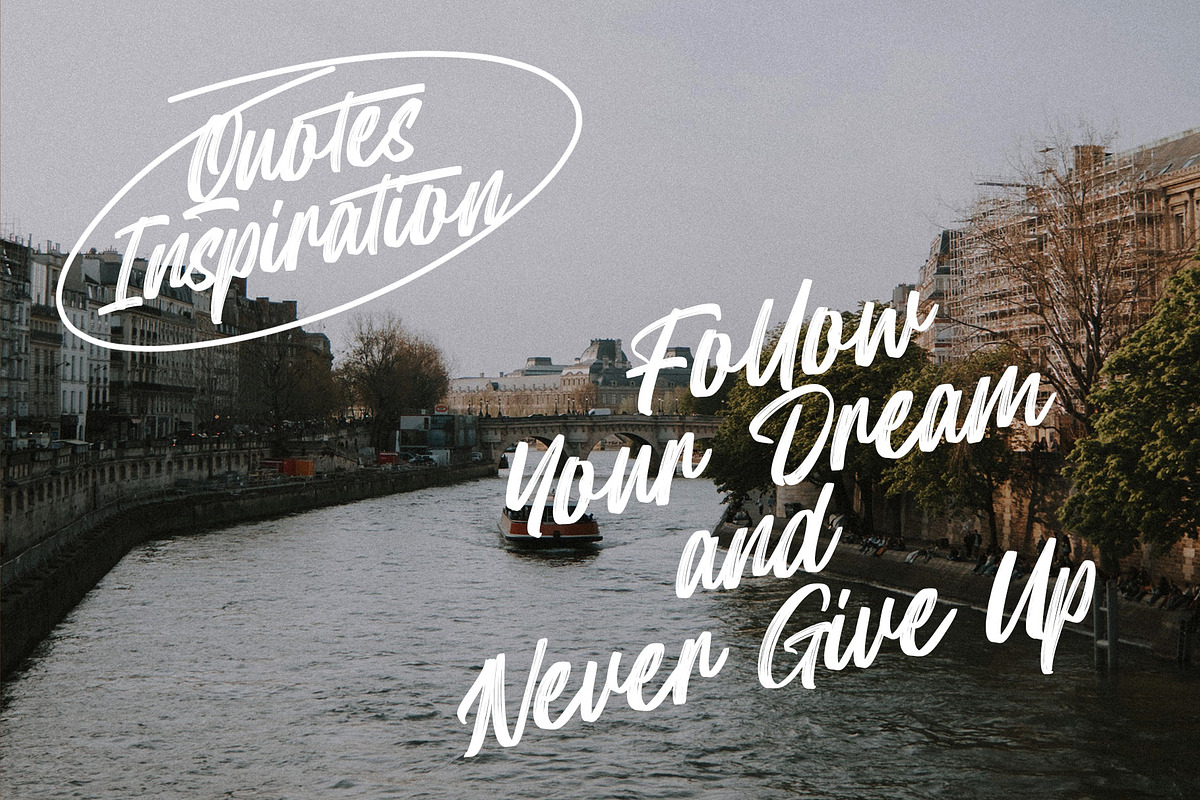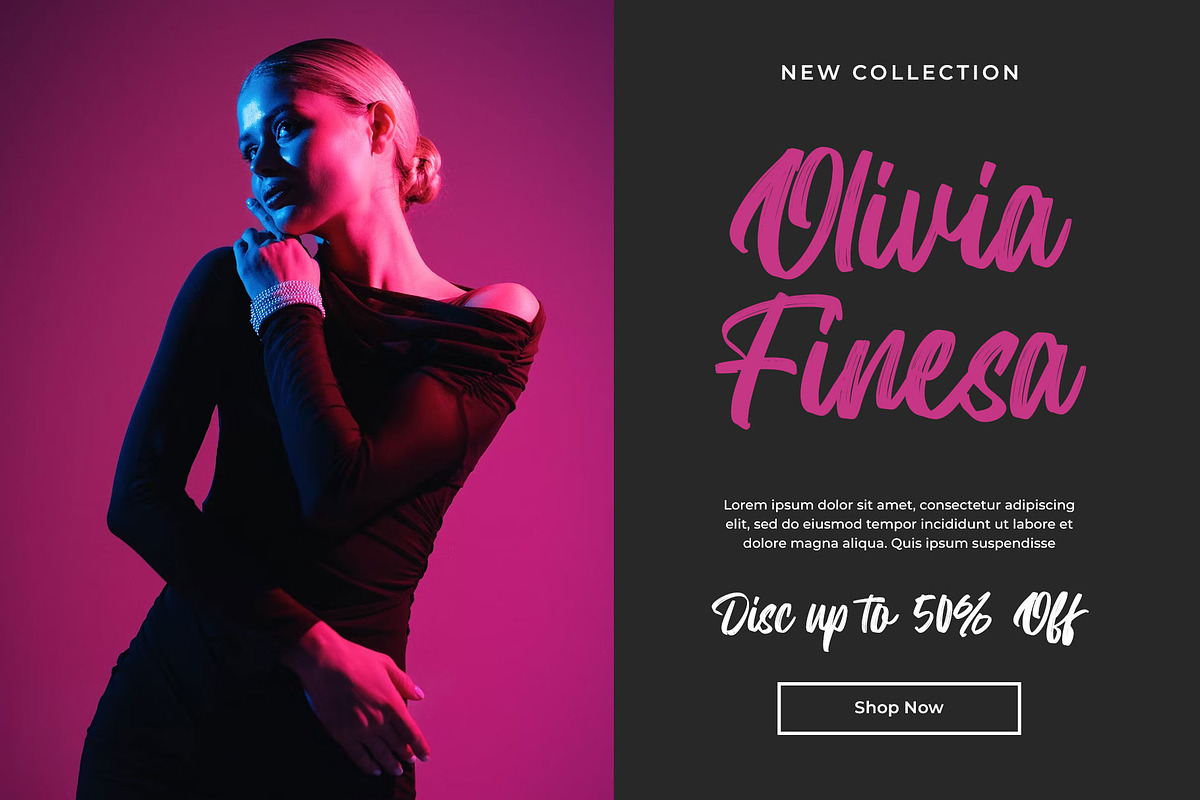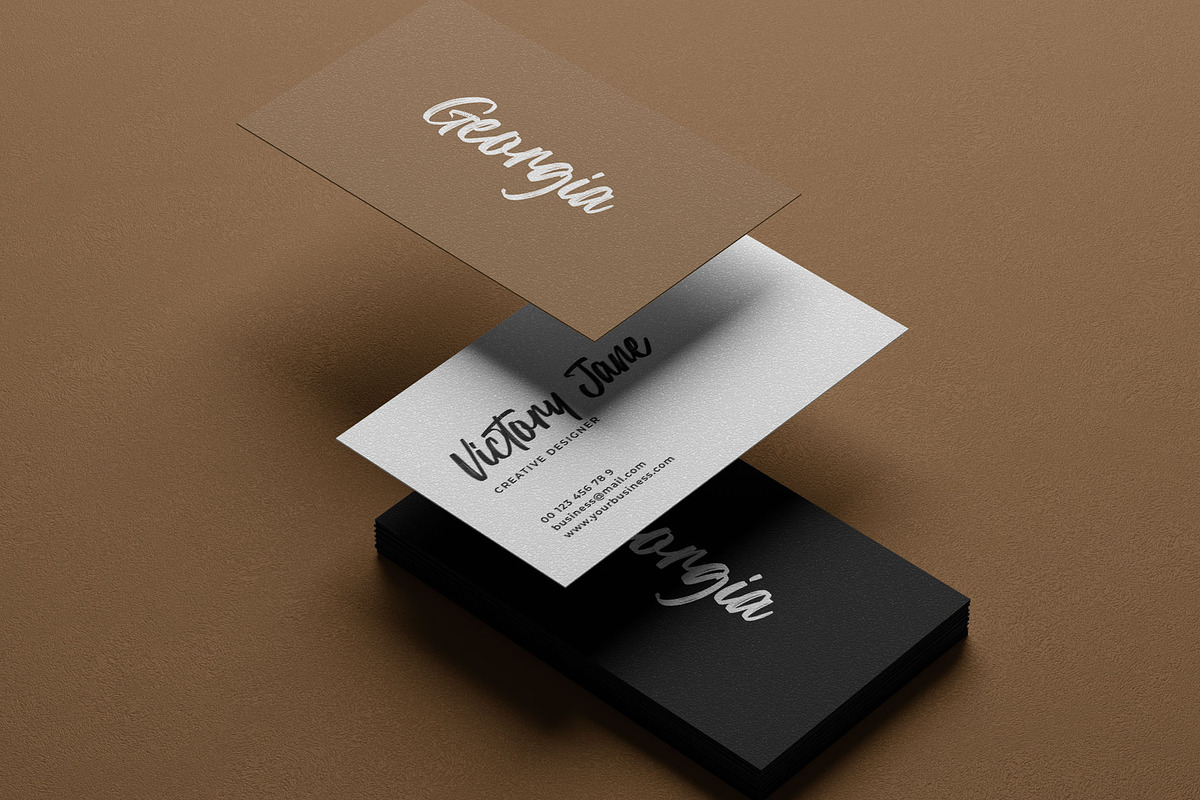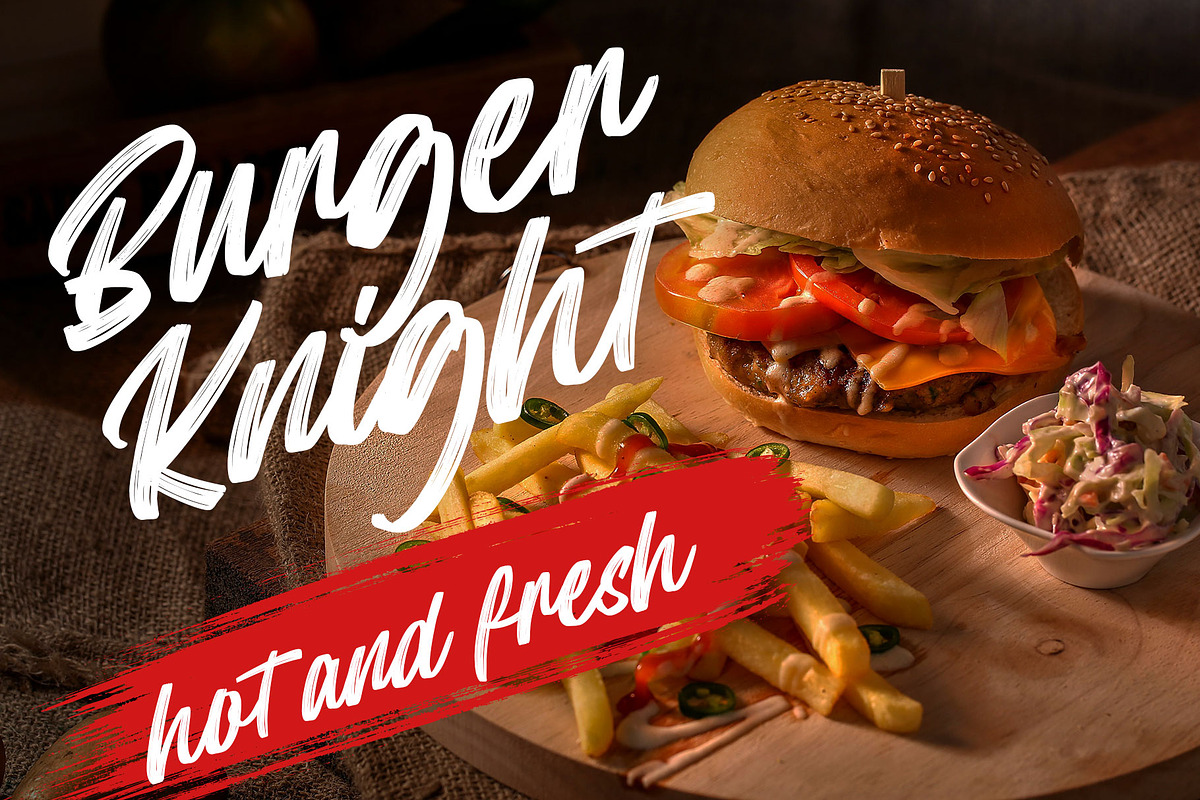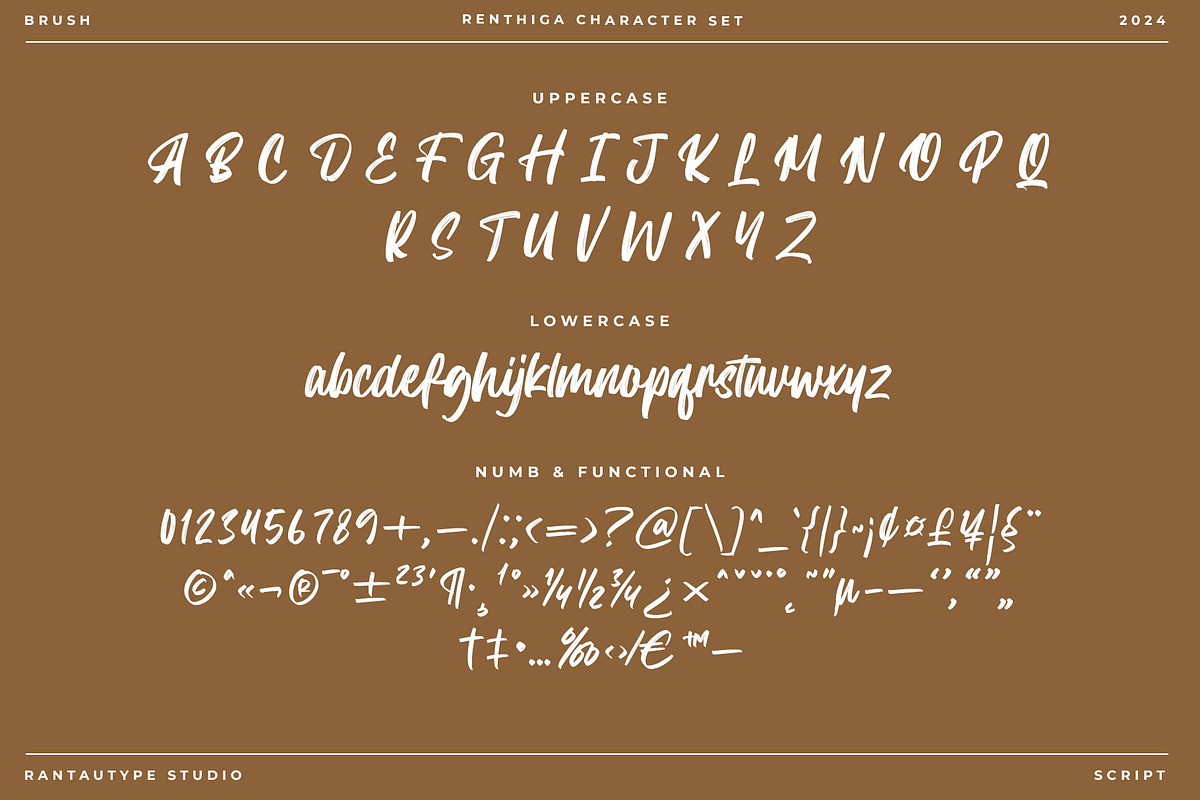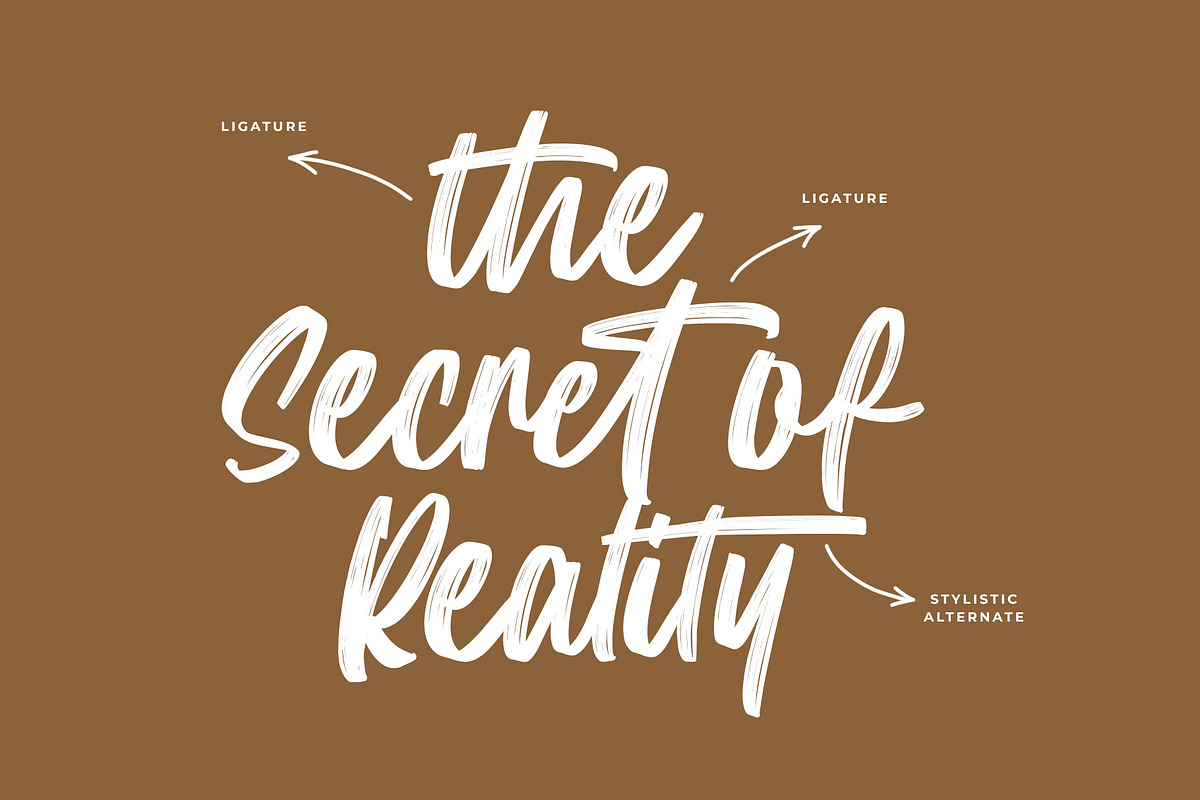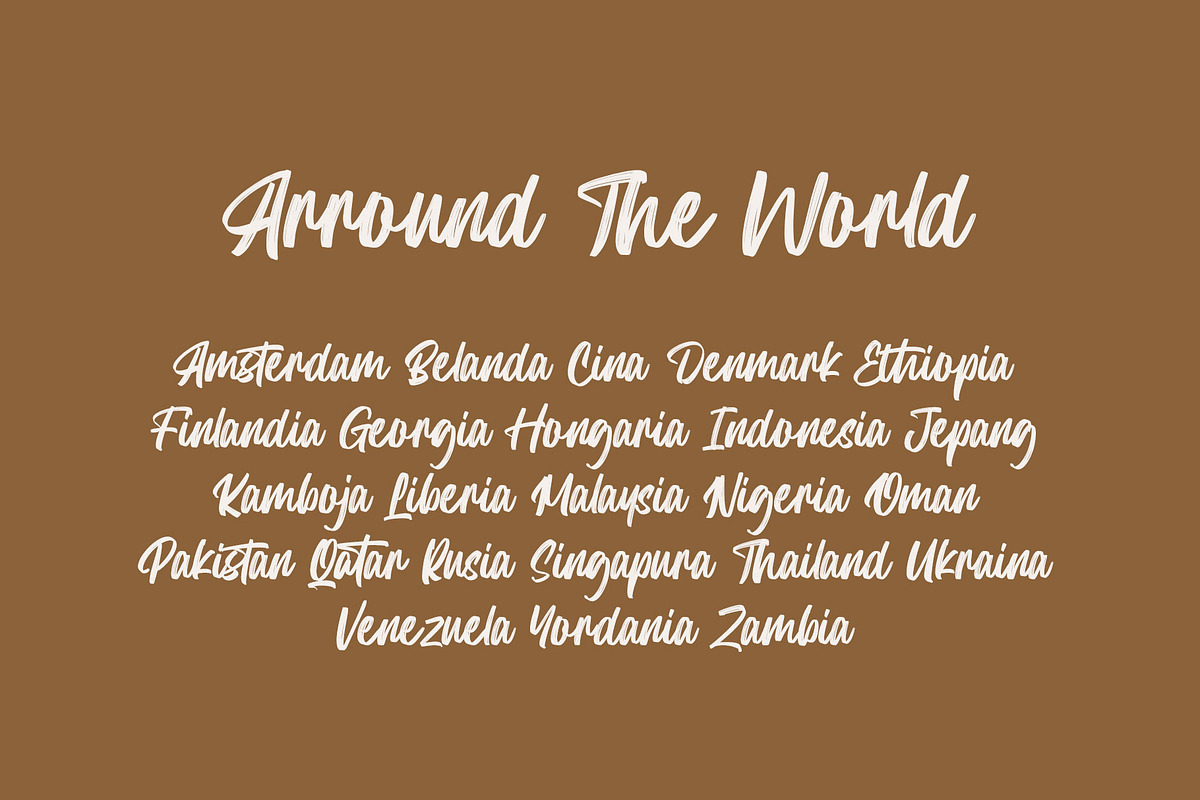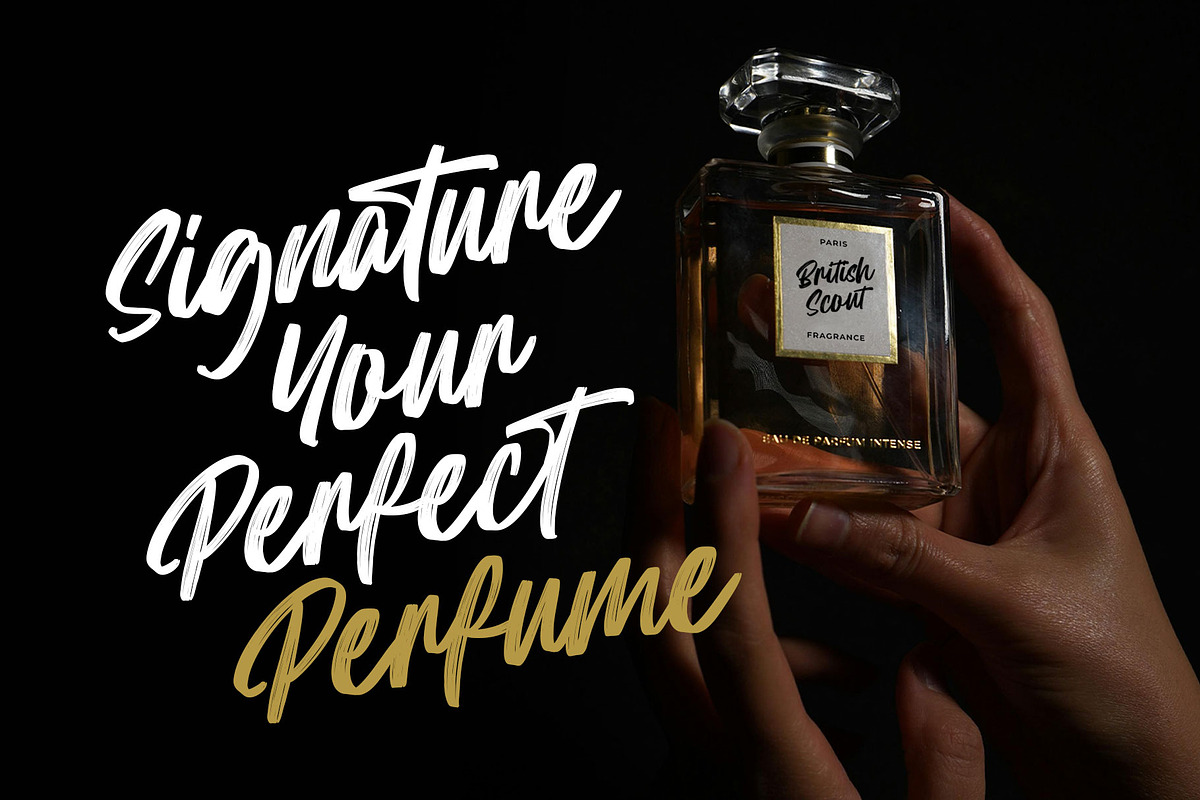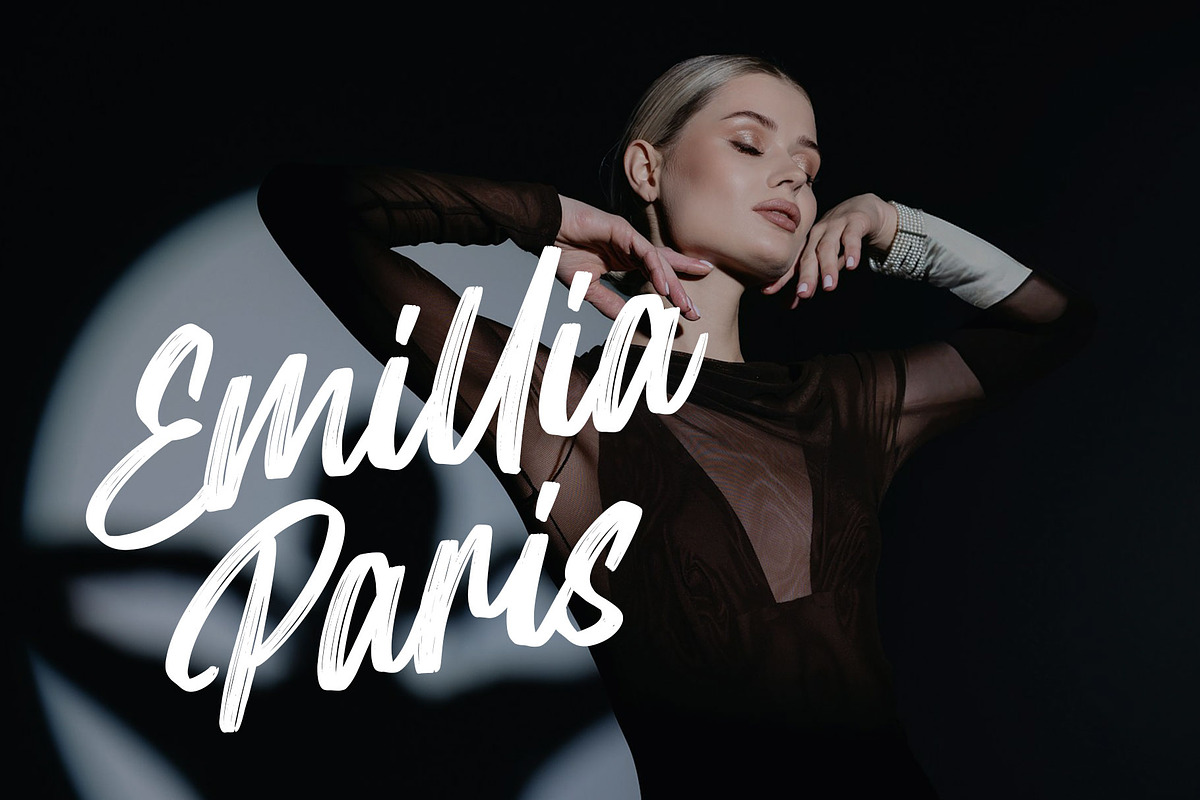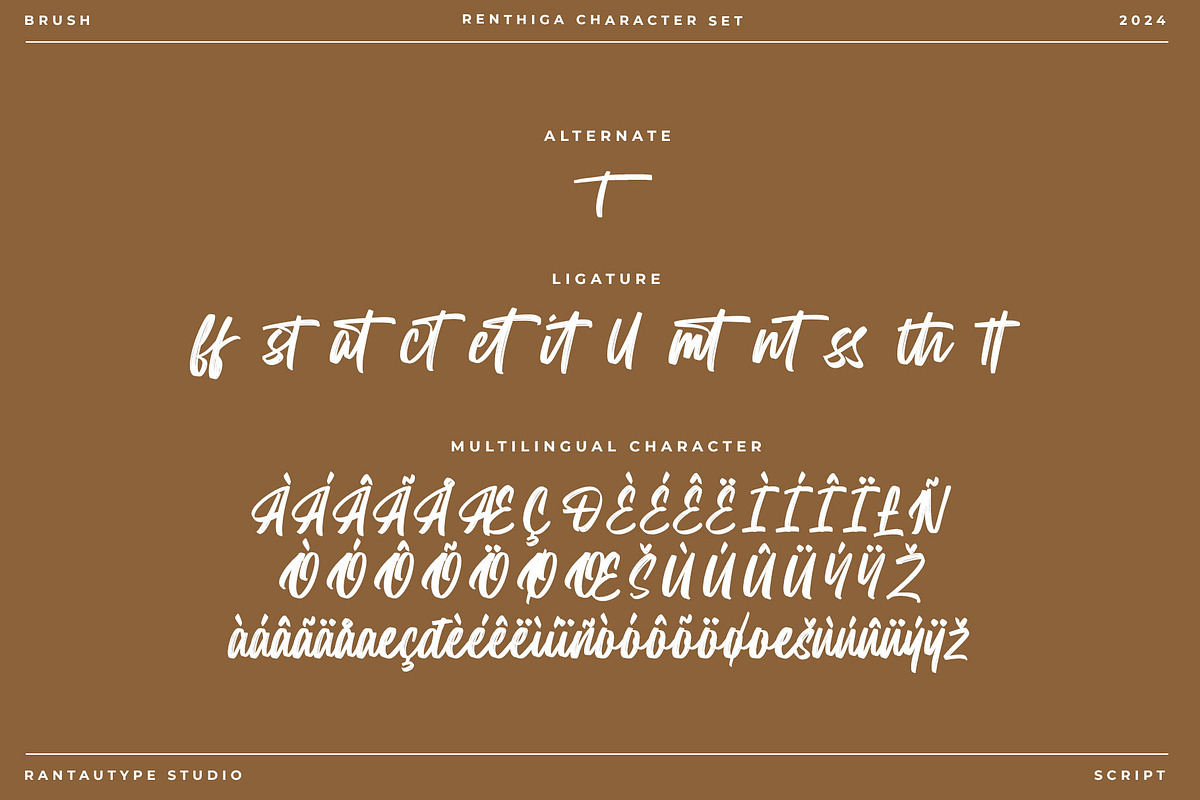
Renthiga Brush Handwritten Font
Renthiga is brush handwritten font with style and trend look. Renthiga come with authentic texture in each character to make your design project awesome. Renthiga is a perfectly choice for any creative endeavor, creating elegant, modern, chic, lifestyle design such as logotype, title, cover, branding, invitations, wedding designs, display and magazine, social media posts, advertisements, printed quotes, product packaging, corporate brand, product designs, labels, photography, watermarks, special events and any other project with handwritten touch.
- Alternate and ligature
Fonts include Multilingual Character for: Afrikaans, Albanian, Asu, Basque, Bemba, Bena, Breton, Chiga, Cornish, Dutch, English, Estonian, Filipino, Finnish, Friulian, Galician, Gusii, Indonesian, Irish, Italian, Kabuverdianu, Kalenjin, Kinyarwanda, Luo, Luxembourgish, Luyia, Machame, North, Oromo, Portuguese, Quechua, Romansh, Rombo, Rundi, Rwa, Samburu, Sango, Sangu, Scottish, Gaelic, Sena, Shambala, Shona, Soga, Somali, Spanish, Swahili, Swedish, Swiss, German.